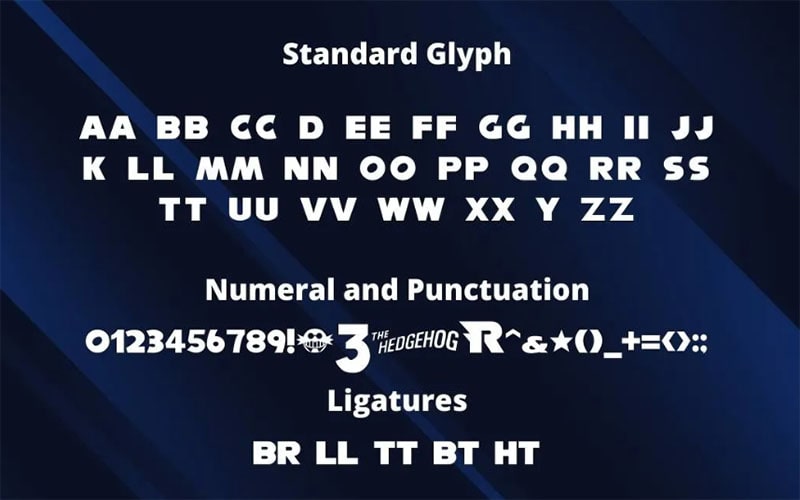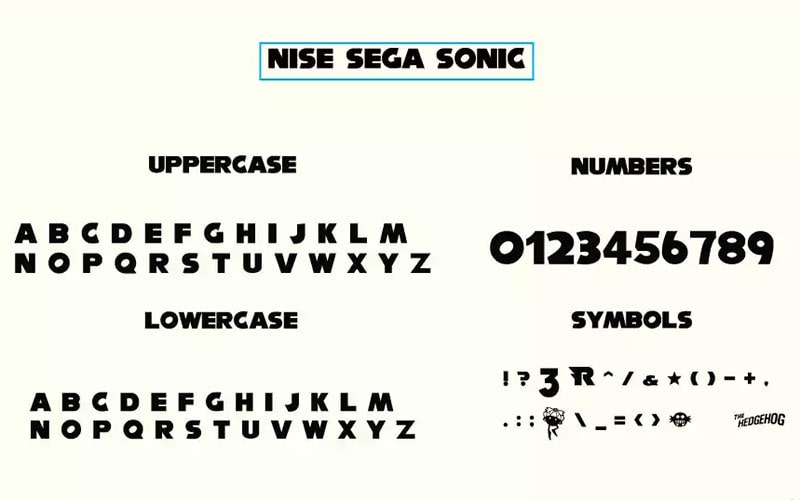
The Nise Sega Sonic Font is a typeface inspired by the iconic lettering used in the Sega Sonic the Hedgehog games. This typeface is perfect for projects that seek to evoke the nostalgic and playful spirit of the classic video game series.
It features a bold, dynamic, and playful style that closely mimics the typography used in the Sonic the Hedgehog branding designed by ActSelect.
The designer created this typeface to pay homage to the original Sega Sonic branding, offering fans a way to incorporate the nostalgic style into their projects.
Its design is characterized by strong lines, vibrant energy, and a sense of movement, making it ideal for capturing the essence of the beloved video game character.
Nise Sega Sonic Font
| Style: | Bold, Dynamic, Playful, Typeface |
This astonishing typeface includes a comprehensive character set featuring Uppercase letters, Lowercase letters, Numerals, Punctuation marks, Special characters, and symbols.